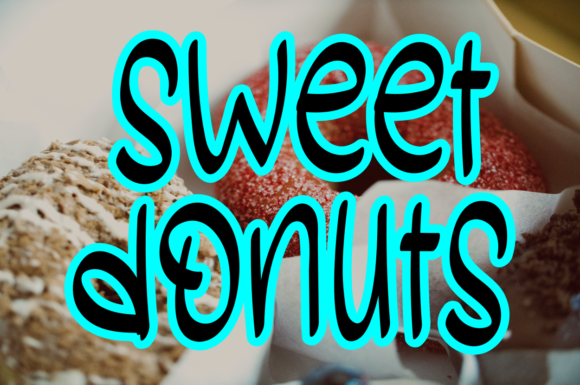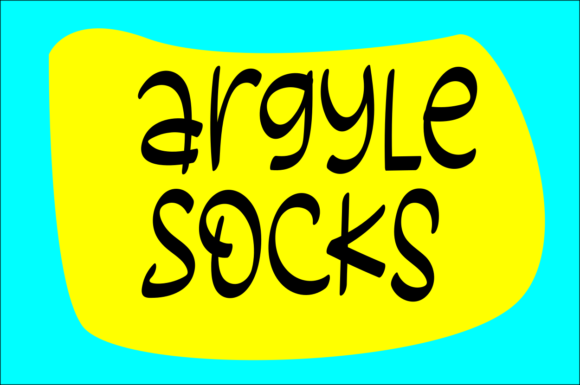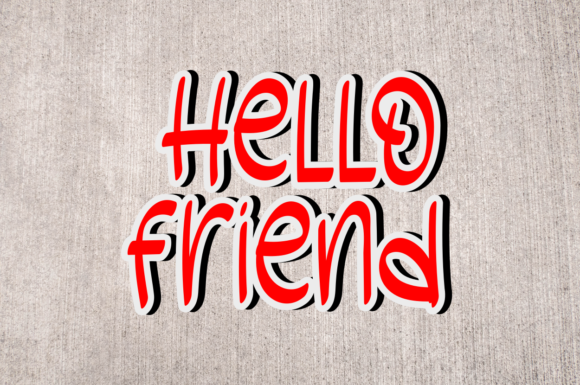
Introducing Blue Light Font: The Ultimate Display Font for Modern Designs
In the world of typography, a good font can make all the difference in the success of a design project. Whether you’re a seasoned designer or a crafty DIY enthusiast, finding the right font can be a daunting task. That’s why we’re excited to introduce you to Blue Light Font, a simple yet cool display font that’s perfect for a wide range of contexts.
What is Blue Light Font?
Blue Light Font is a modern display font that’s designed to be friendly, approachable, and incredibly flexible. Its clean lines and simple shapes make it easy to read and understand, while its trendy feel adds a touch of sophistication to any design project. Whether you’re creating a logo, a poster, or a social media graphic, Blue Light Font is the perfect choice.
Key Features of Blue Light Font
- Simple and Cool Design: Blue Light Font features a simple yet stylish design that’s perfect for modern designs.
- Flexible and Versatile: This font is incredibly flexible and can be used in a wide range of contexts, from digital displays to print materials.
- Trendy and Modern: Blue Light Font has a trendy and modern feel that’s perfect for designs that require a fresh and youthful look.
- Easy to Read: The clean lines and simple shapes of Blue Light Font make it easy to read and understand, even at small sizes.
Endless Variations and Creative Possibilities
One of the best things about Blue Light Font is its endless variations and creative possibilities. With this font, you can experiment with different colors, textures, and effects to create a unique look that’s all your own. Whether you’re a designer looking to add some personality to your work or a crafter looking to create something special, Blue Light Font is the perfect choice.
How to Use Blue Light Font
- Create a Logo: Use Blue Light Font to create a modern and stylish logo for your business or brand.
- Design a Poster: Use Blue Light Font to create a bold and eye-catching poster for a event or promotion.
- Make a Social Media Graphic: Use Blue Light Font to create a fun and engaging social media graphic that will grab the attention of your followers.
Tips and Tricks for Working with Blue Light Font
Here are a few tips and tricks to help you get the most out of Blue Light Font:
- Experiment with Colors: Try out different colors and color combinations to add some personality to your designs.
- Add Texture and Effects: Add texture and effects to your designs to give them a unique and creative look.
- Play with Layouts: Experiment with different layouts and compositions to create a visually appealing design.
In conclusion, Blue Light Font is a simple yet cool display font that’s perfect for modern designs. Its friendly feel and flexible design make it incredibly versatile, while its trendy feel adds a touch of sophistication to any design project. Whether you’re a designer or a crafter, Blue Light Font is a great choice for anyone looking to add some personality to their work. So why wait? Download Blue Light Font today and start exploring its endless variations and creative possibilities!